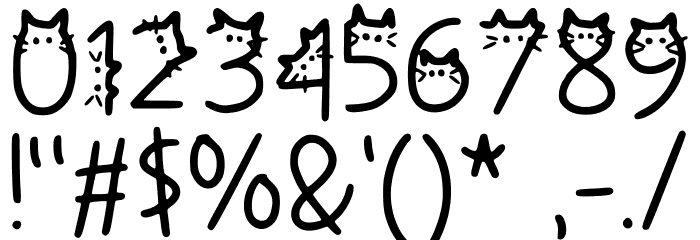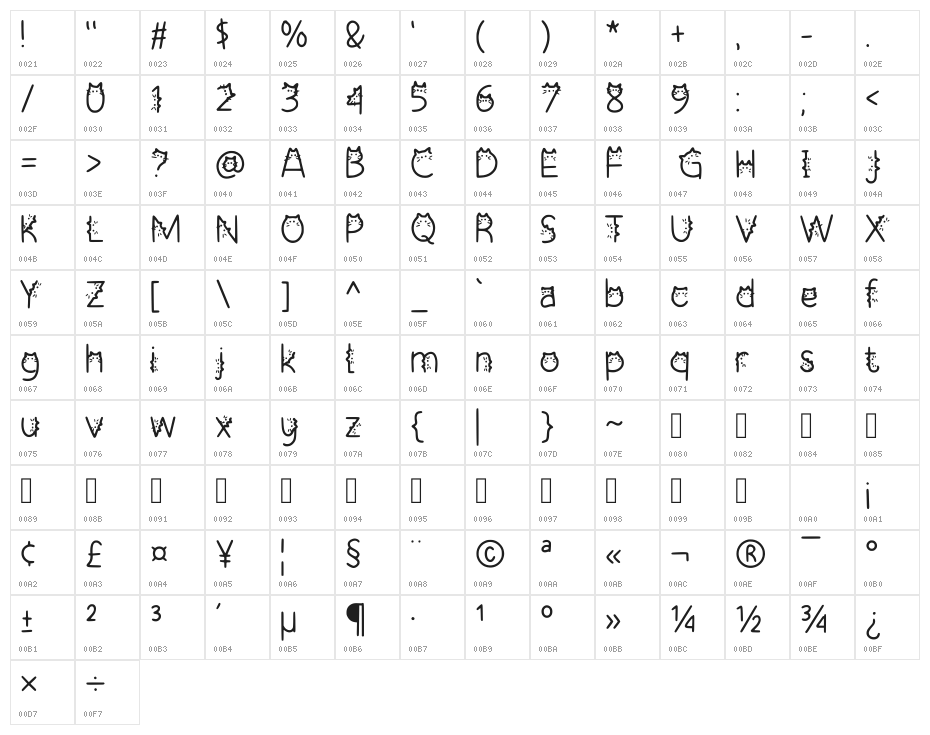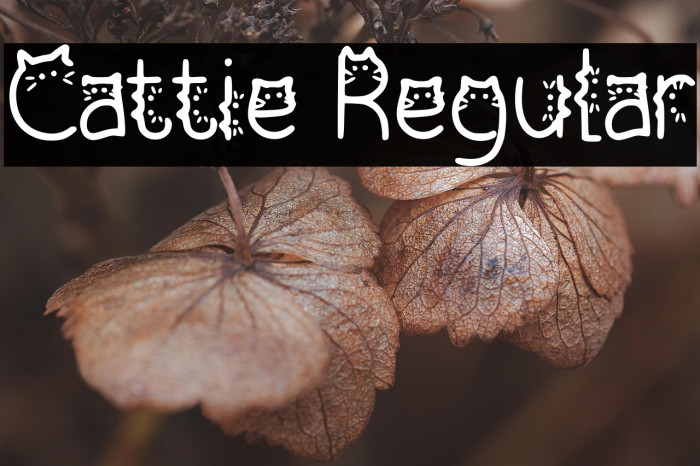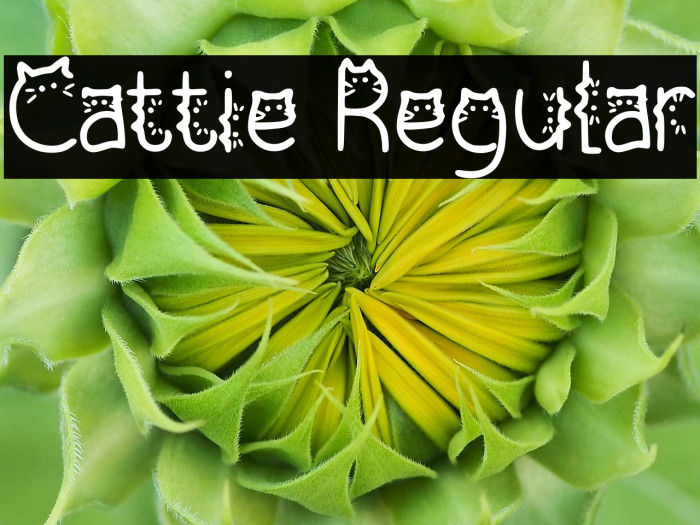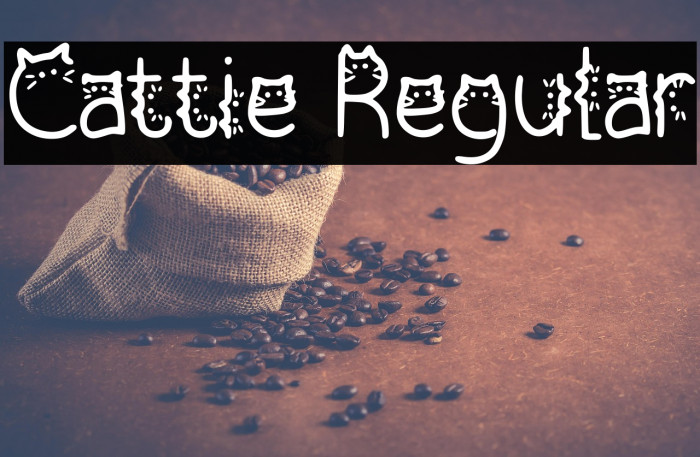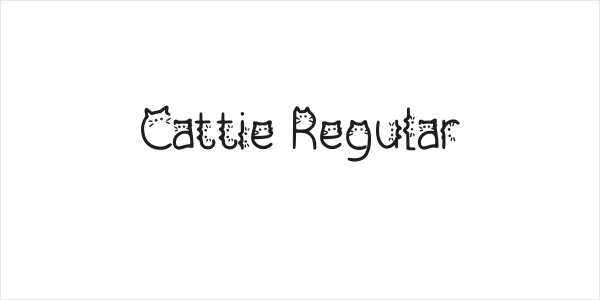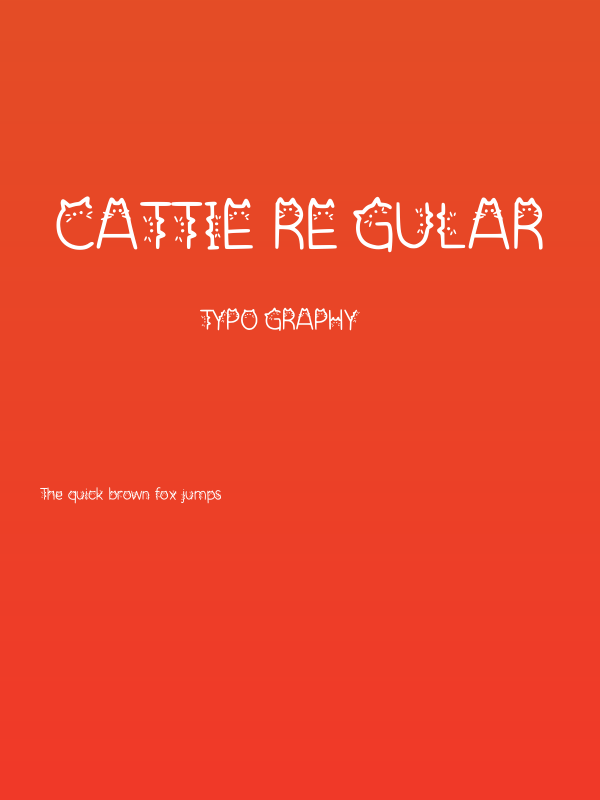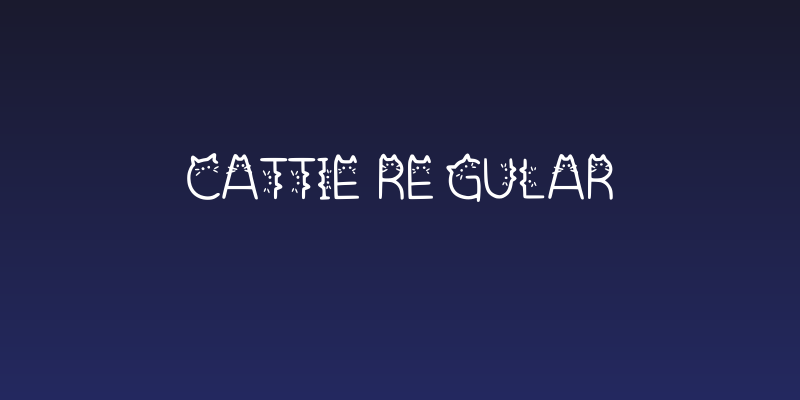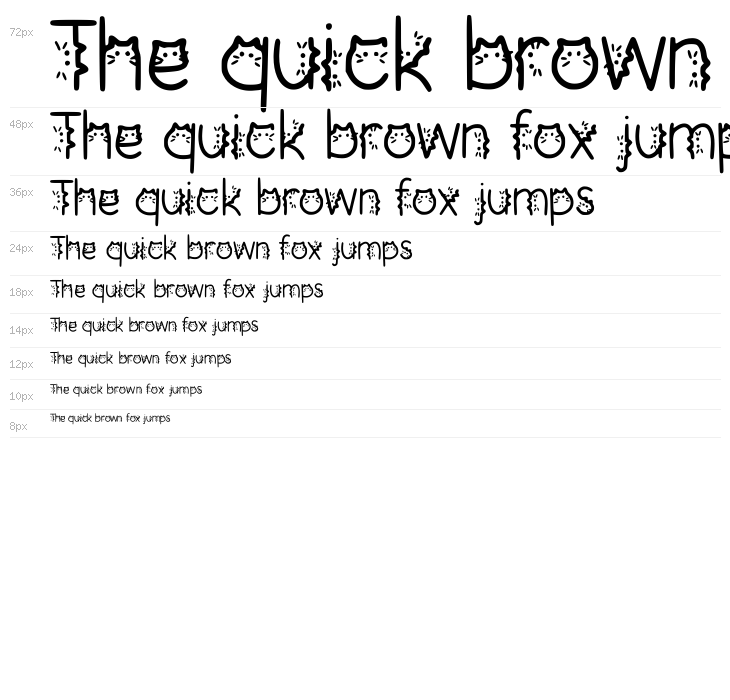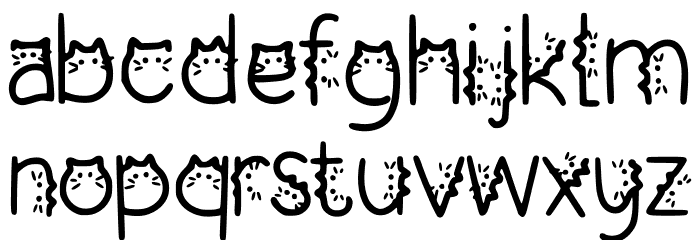
Cattie Regular Font
Cattie Regular Description
This playful and whimsical font features a unique design where each character is adorned with a small cat face, adding a touch of charm and personality. The strokes are bold and rounded, giving the font a friendly and approachable appearance. The characters are evenly spaced, ensuring readability while maintaining its decorative style. This font is perfect for projects that require a fun and lighthearted touch, such as children's books, playful branding, or creative invitations. Its distinctive style makes it stand out, capturing attention with its delightful and quirky details.
| Overall Style | Whimsical |
| Proposed Projects | Ideal for children's books, playful branding, creative invitations, and any project needing a fun touch. |